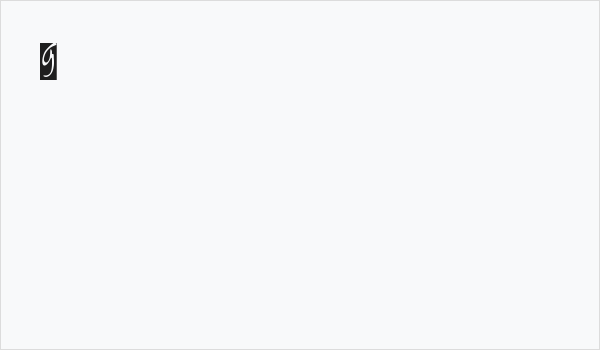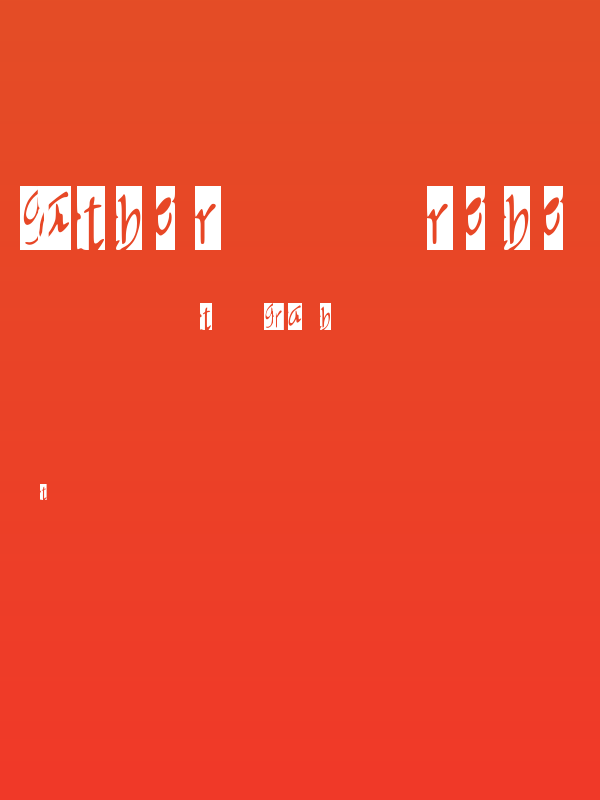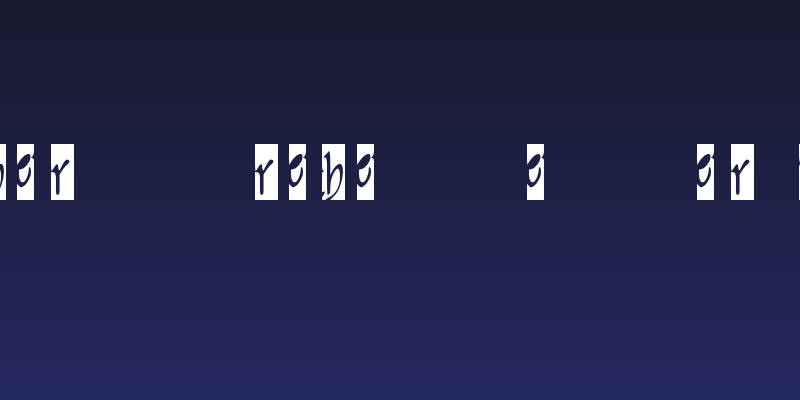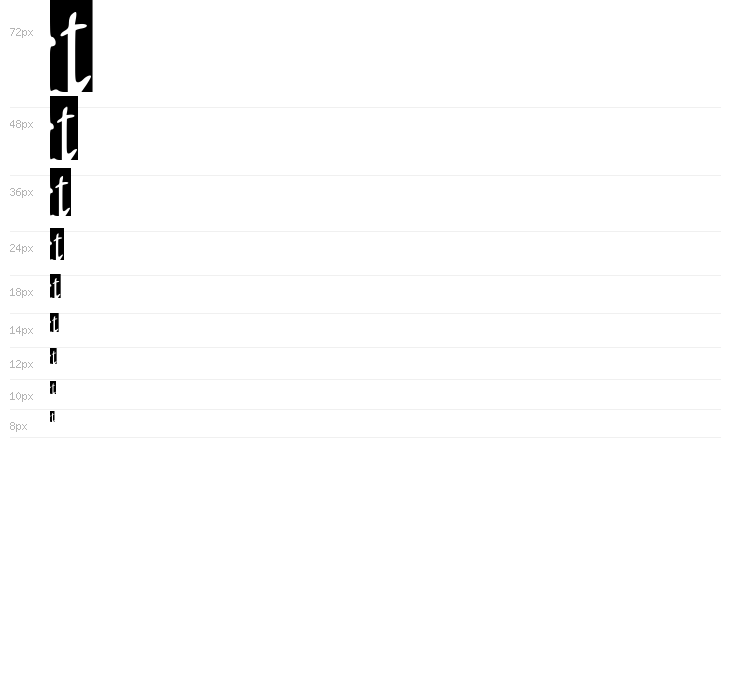
Gather Comprehensive lowercase Font
Gather Comprehensive lowercase Description
This font features a flowing, cursive style with elegant curves and a handwritten appearance. The lowercase letters exhibit a smooth, continuous stroke, giving it a graceful and sophisticated look. The characters are well-balanced with a slight slant, enhancing its fluidity. The overall design is reminiscent of classic calligraphy, making it suitable for projects that require a touch of elegance and personal flair. The font maintains consistency in stroke width, providing a harmonious and visually pleasing aesthetic.